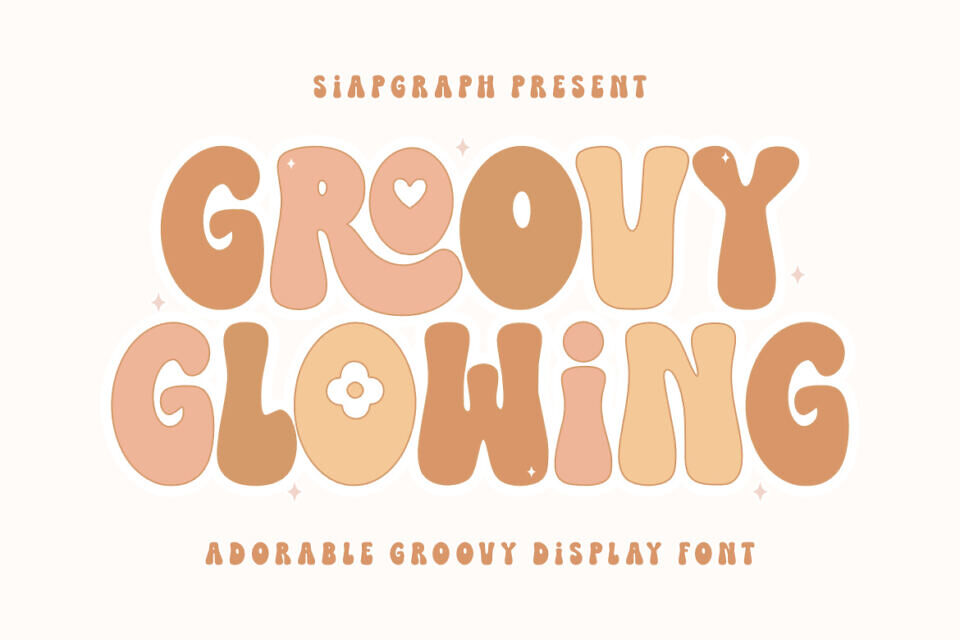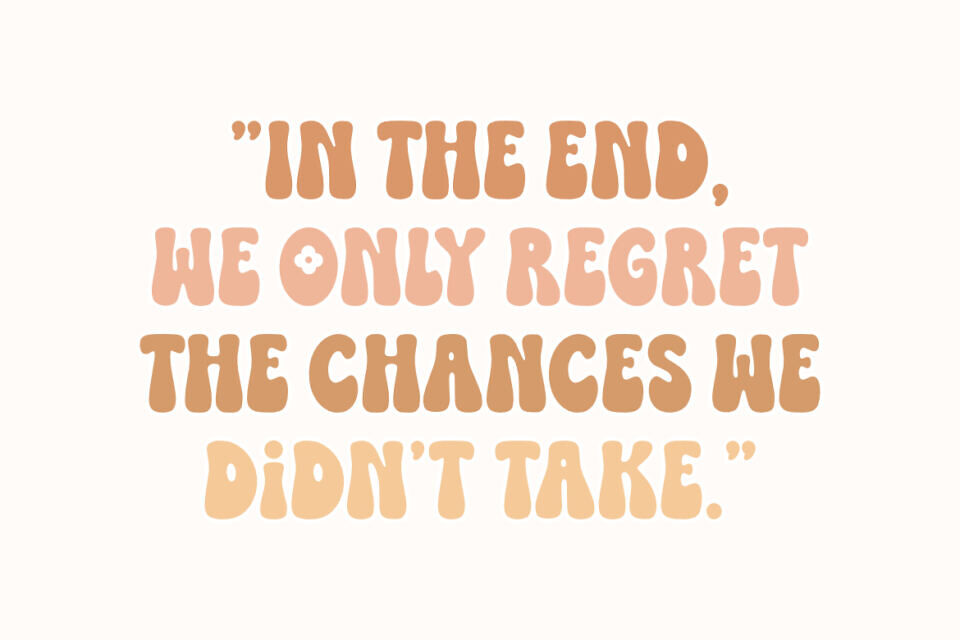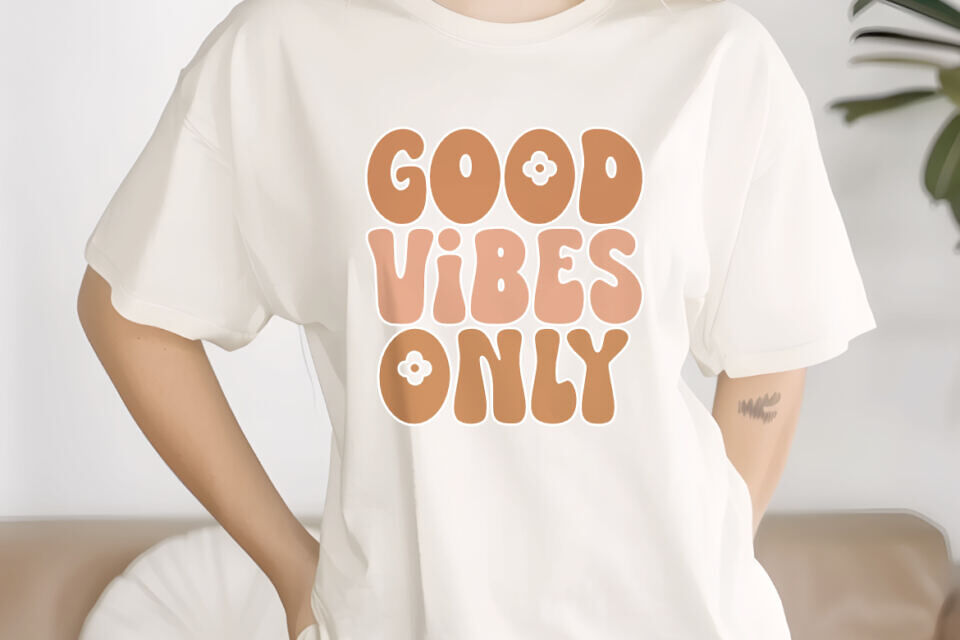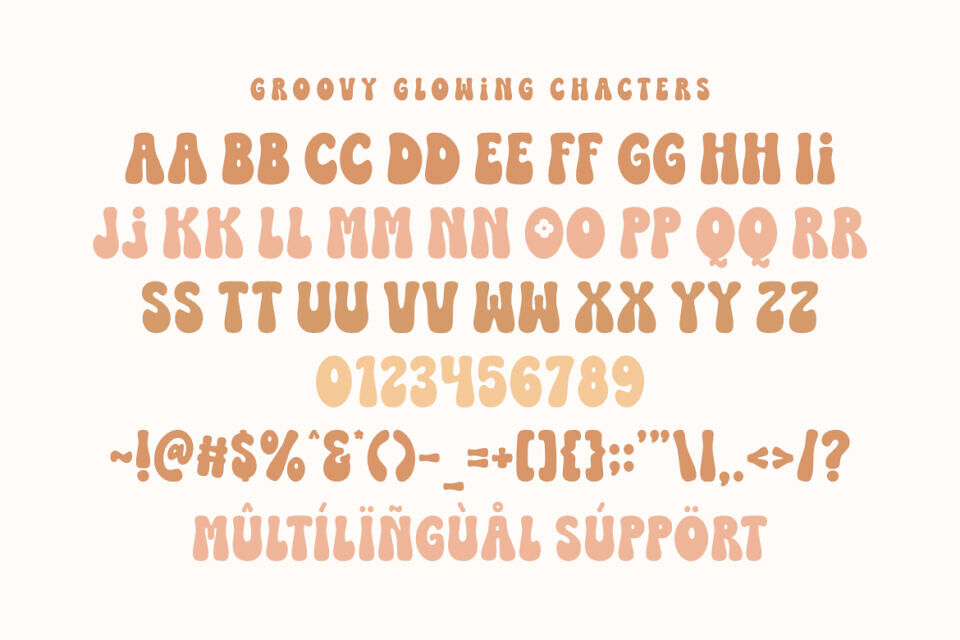
Groovy Glowing Font
Groovy Glowing is an adorable groovy display font that brings a cozy, nostalgic, and stylish touch to your creative projects. With its bold, wavy letterforms and charming retro aesthetic, this typeface is perfect for creating designs that feel both trendy and heartwarming.
Its clean, chunky construction is specifically optimized for the crafting community, ensuring a seamless and frustration-free experience for vinyl cutting, sublimation, and high-quality digital printing.